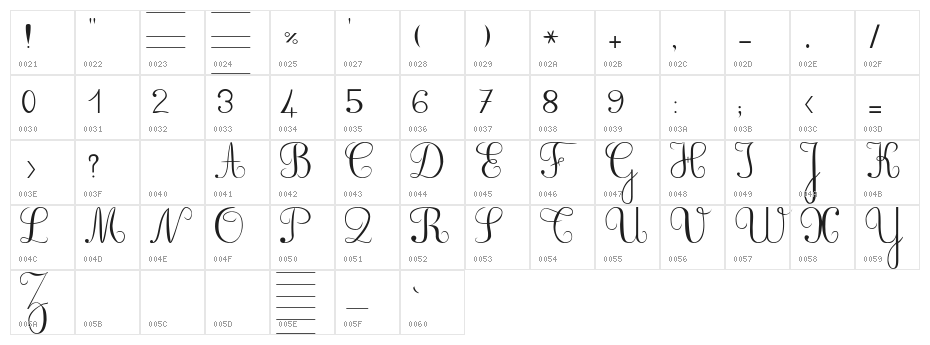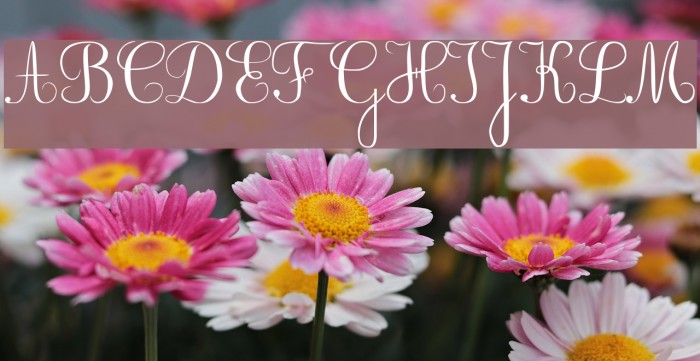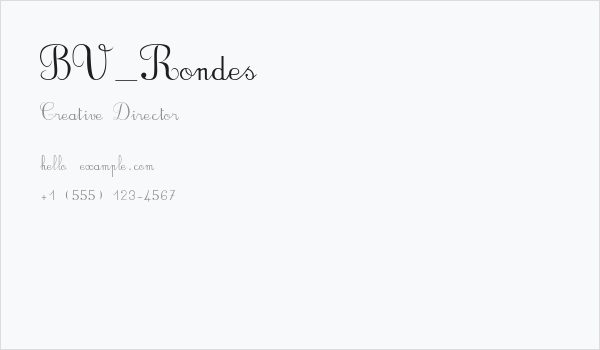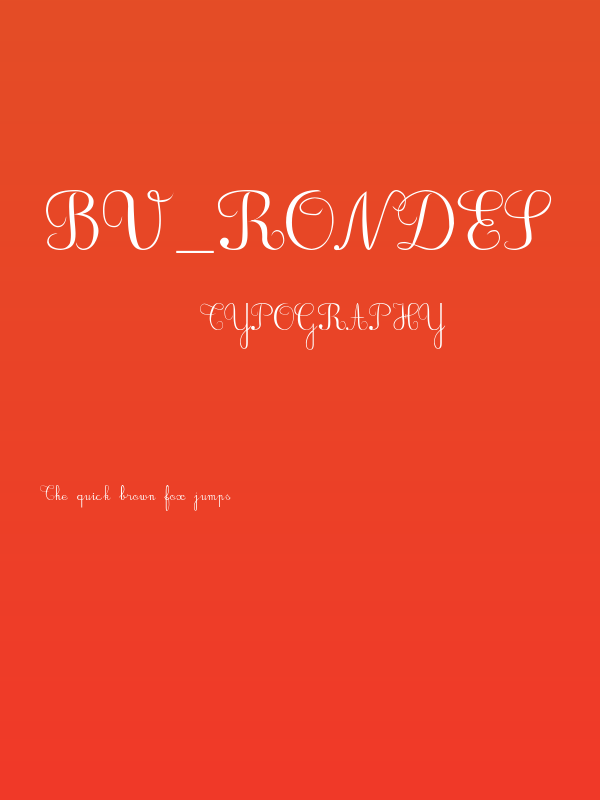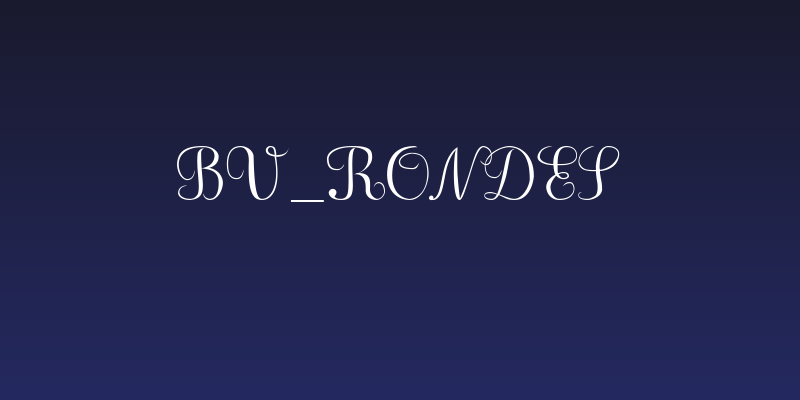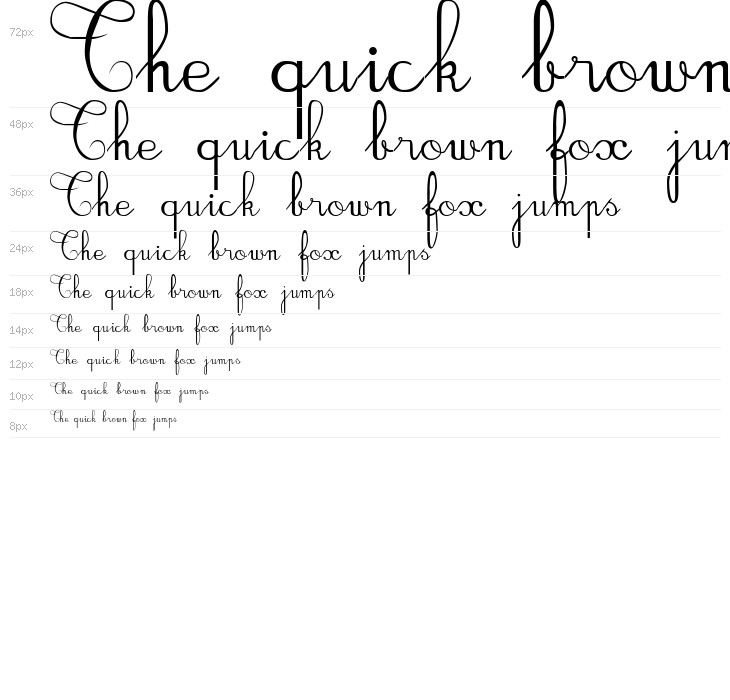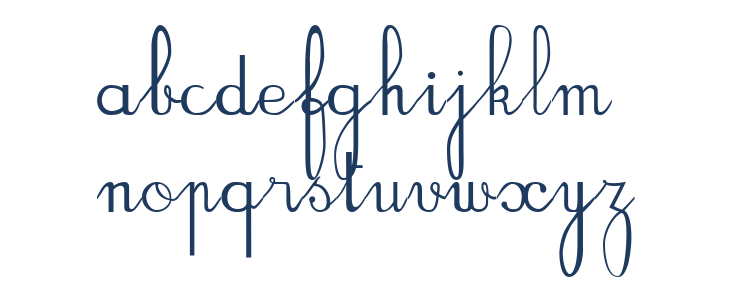
BV_Rondes Font
BV_Rondes Description
This font features a playful and elegant script style, characterized by its flowing, interconnected letters and decorative loops. The uppercase letters have a distinctive flair with swirls and curves that add a whimsical touch, while the lowercase letters maintain a smooth, cursive flow. The numerals are designed with a consistent stroke width, complementing the overall aesthetic. Special characters are thoughtfully integrated, maintaining the font's cohesive style. This font is ideal for projects that require a touch of elegance and creativity, such as invitations, greeting cards, and branding materials.